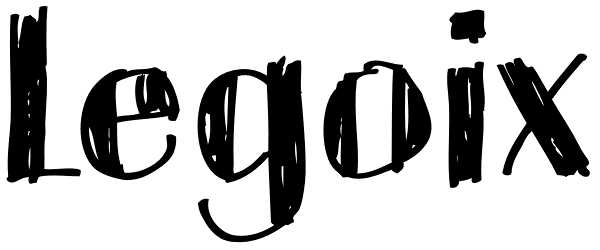
Legoix
Legoix is a simulates scribbled letters - comes with ligatures to avoid repeating letters. You will need to use OpenType supporting applications to use the autoligatures.